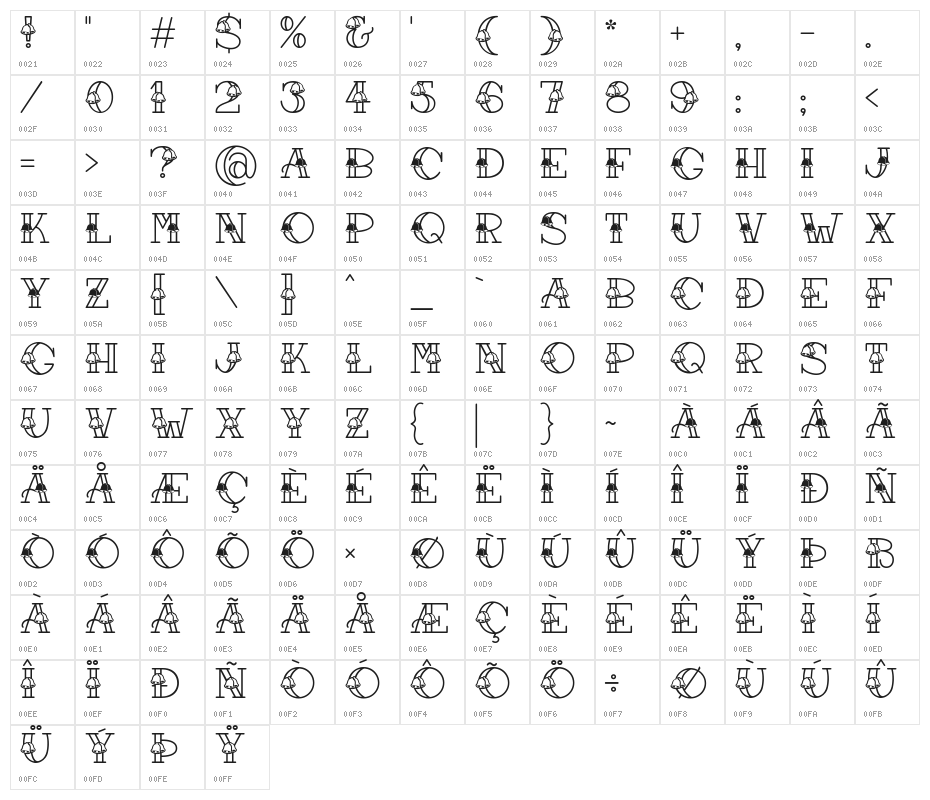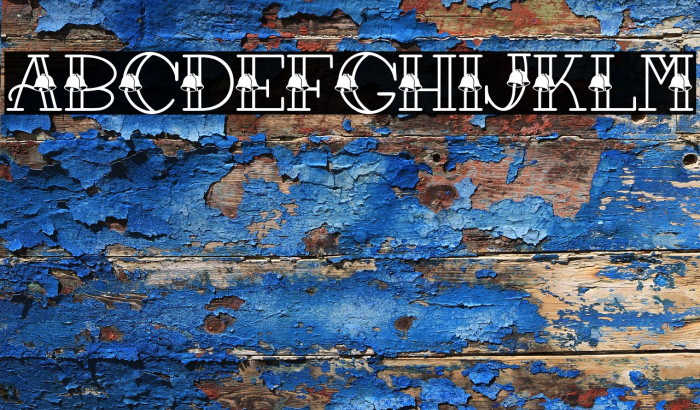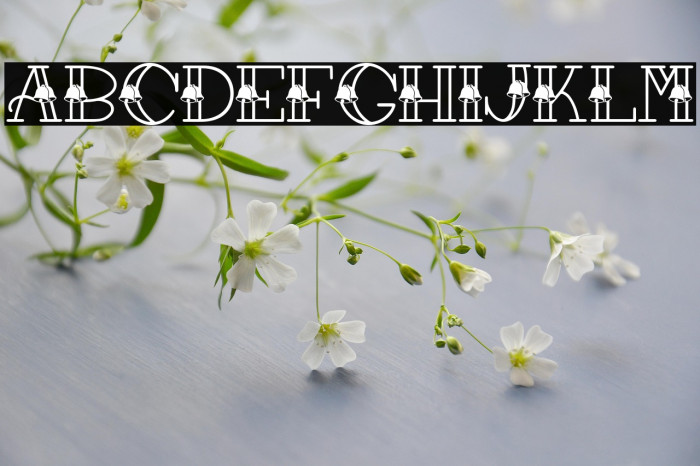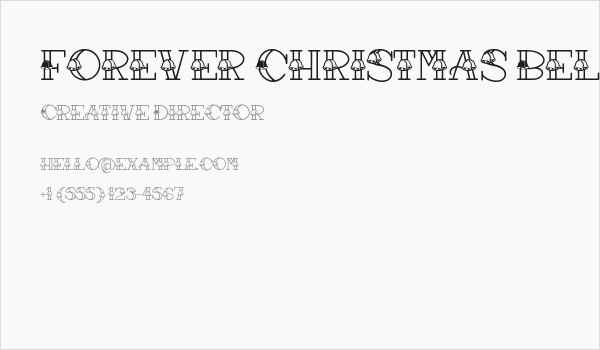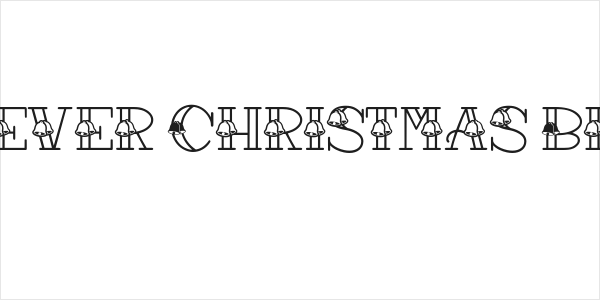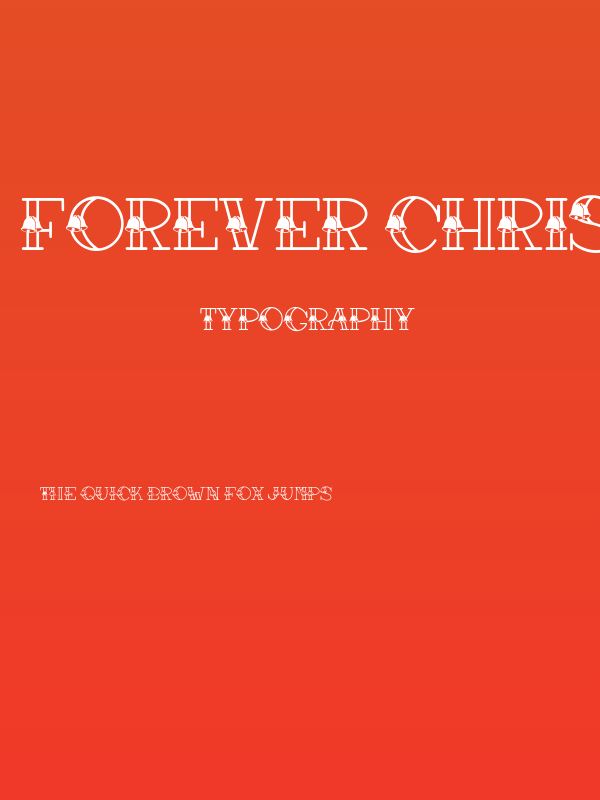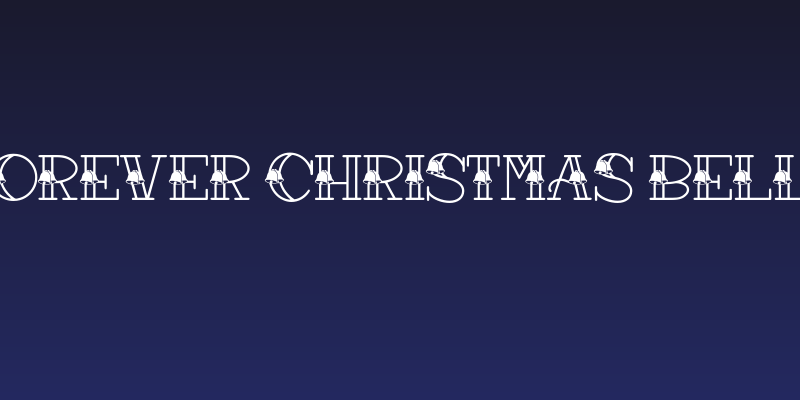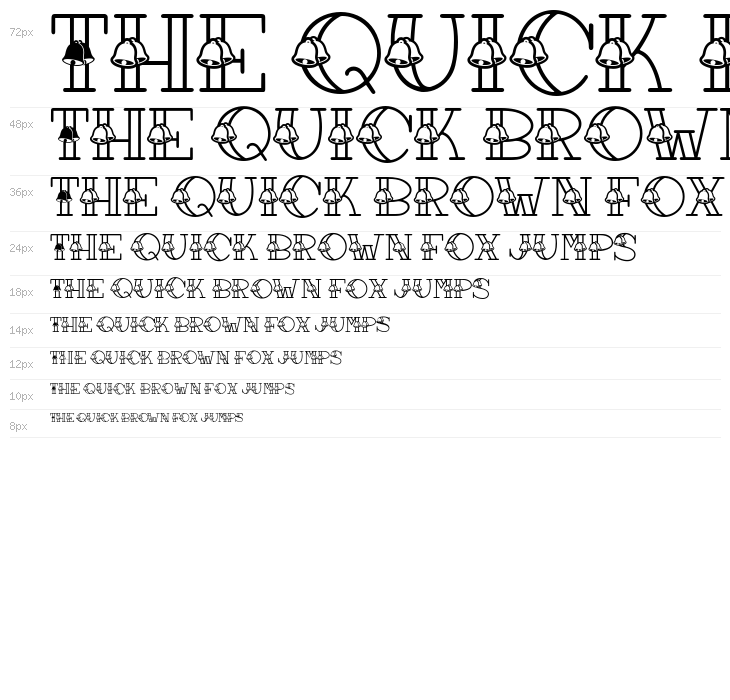
Forever Christmas Bells Font
Forever Christmas Bells Description
This decorative font features a unique and festive design, incorporating Christmas bells into the structure of each character. The uppercase and lowercase letters, as well as numbers and special characters, all include bell motifs, giving the font a playful and holiday-themed appearance. The strokes are bold and consistent, with a medium contrast that highlights the bell elements without overwhelming the overall readability. The font's style is distinctly decorative, making it ideal for seasonal projects that require a touch of whimsy and celebration.
| Use Case | Headlines, Logos, Seasonal designs |
| Proposed Projects | Ideal for holiday cards, festive event invitations, Christmas-themed posters, and seasonal branding materials. |